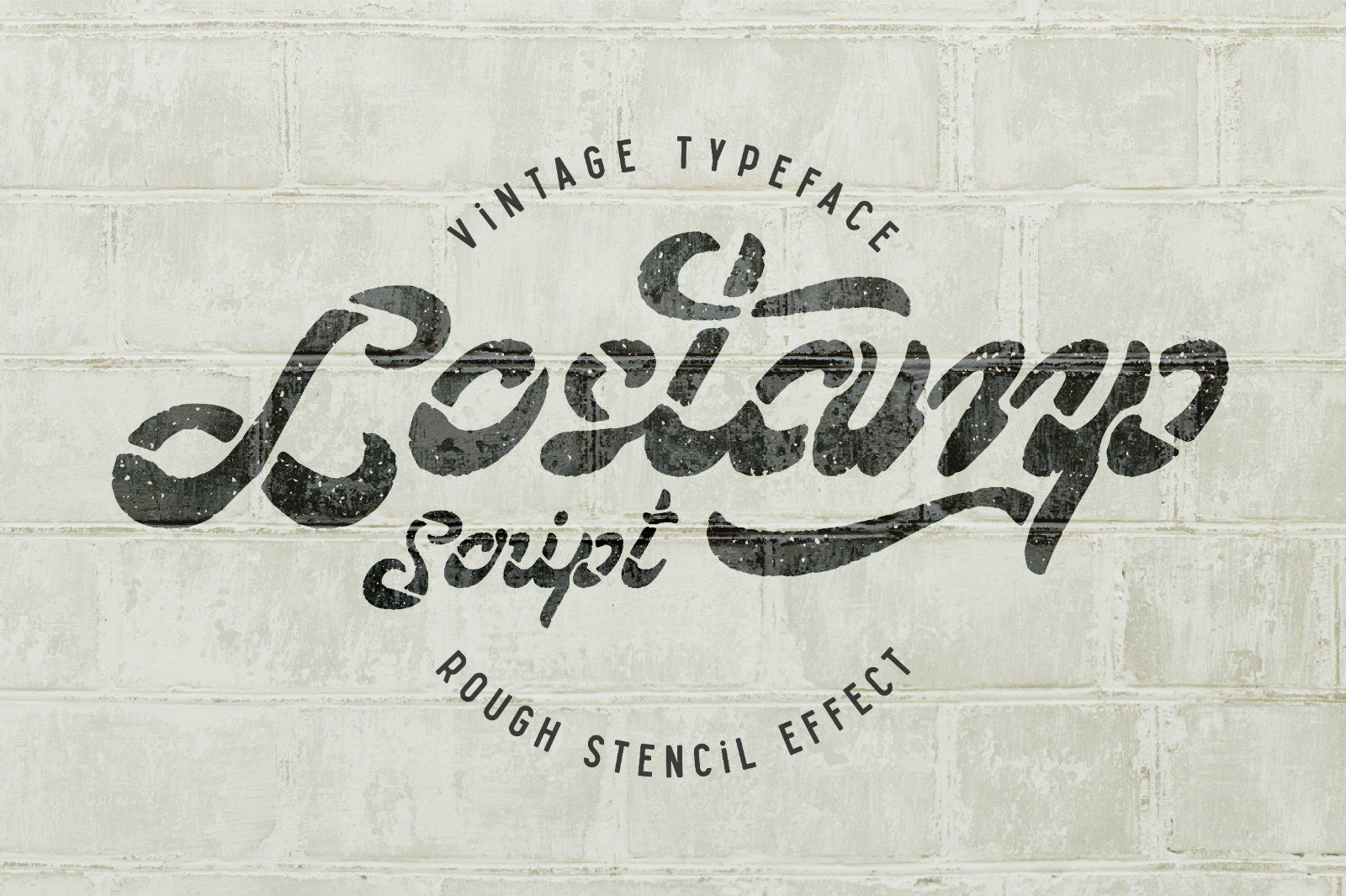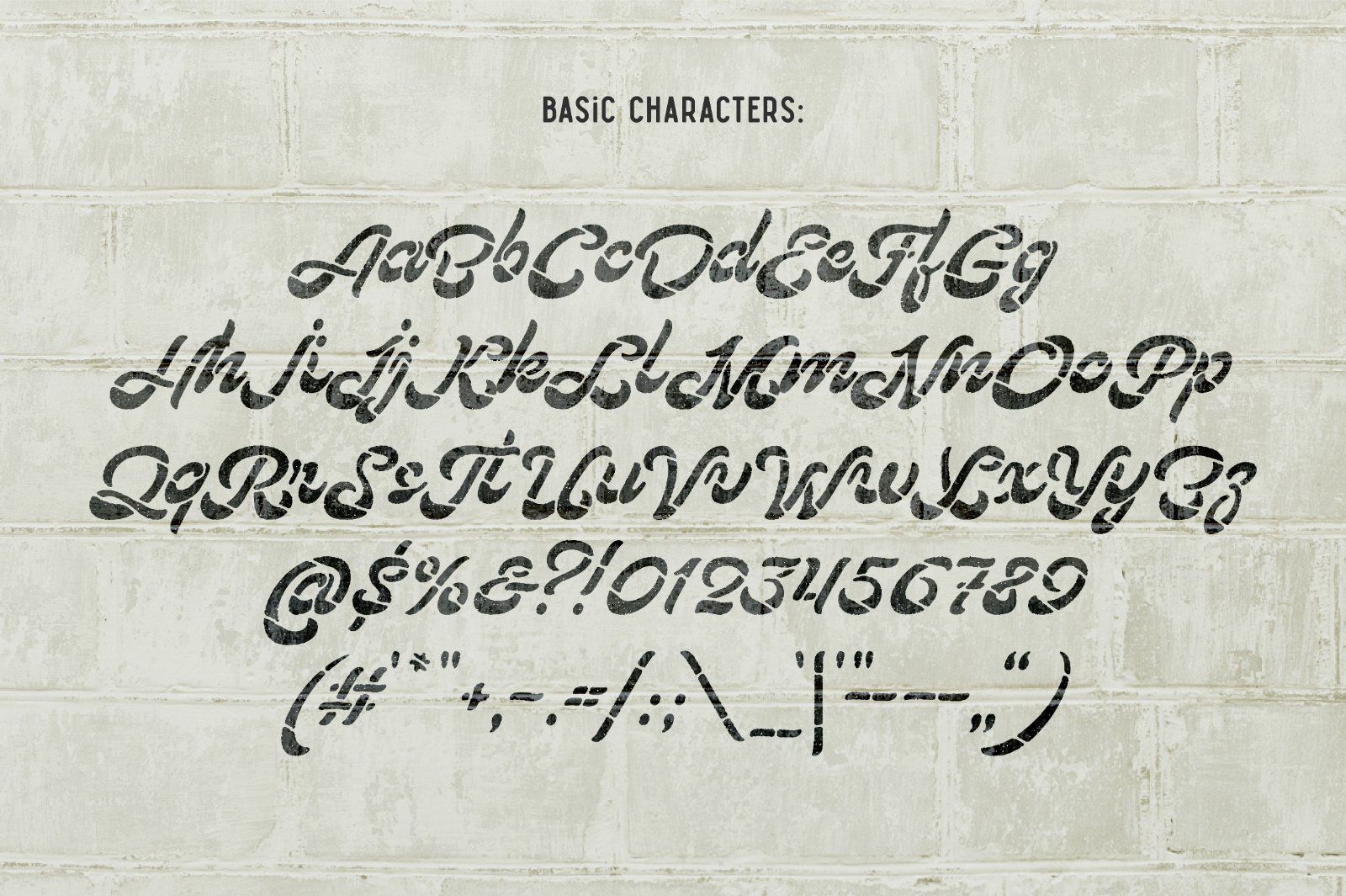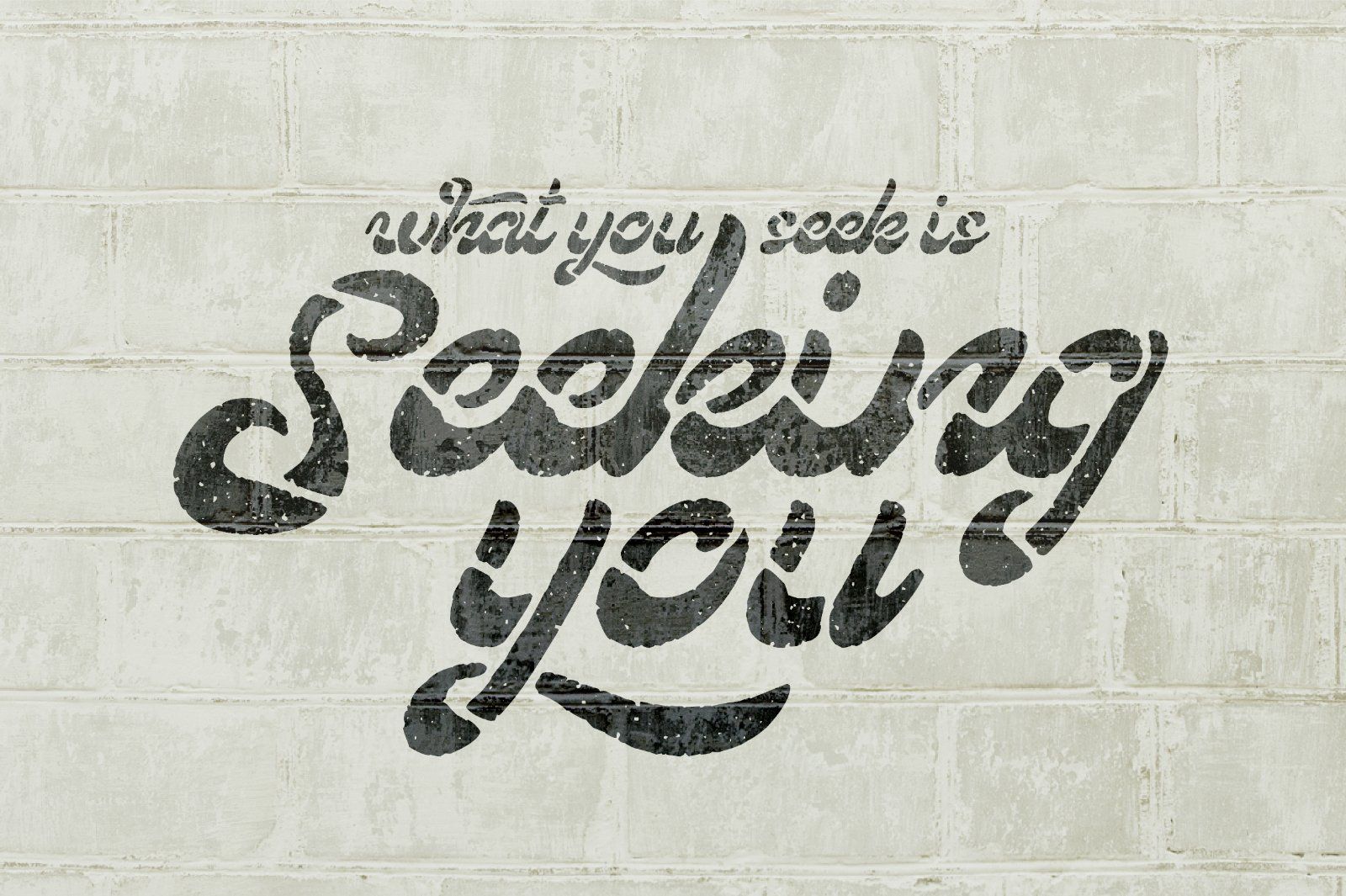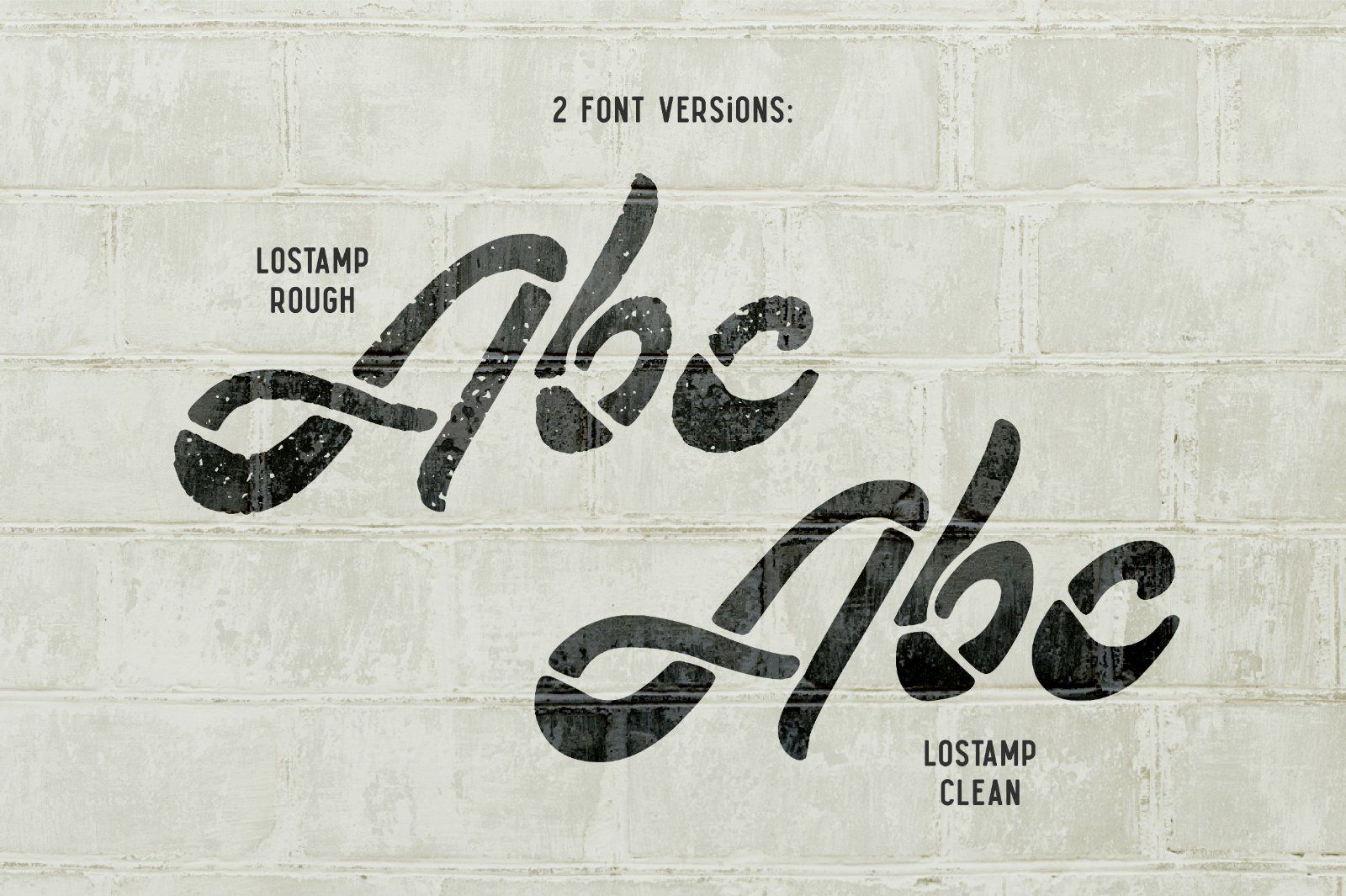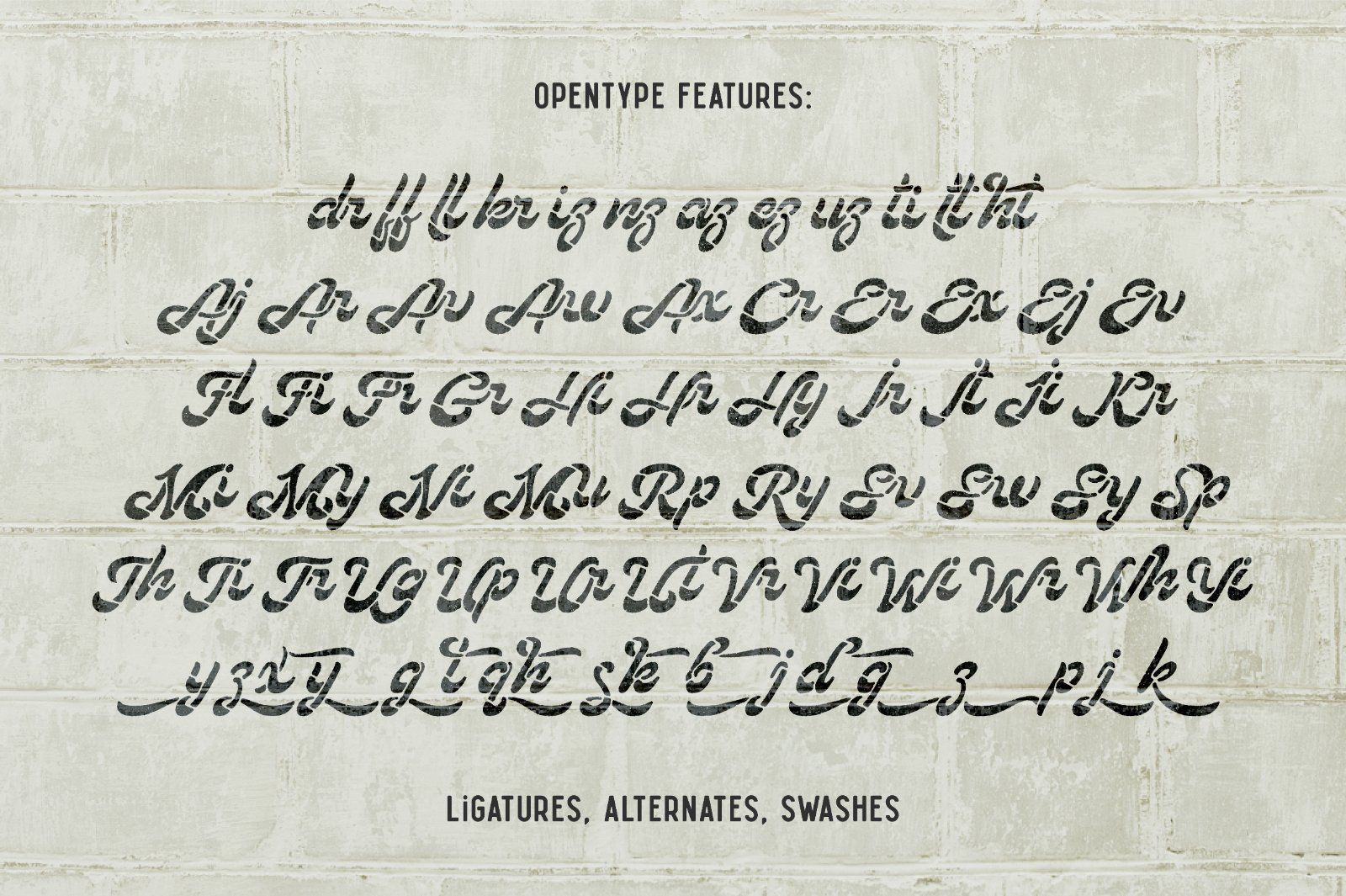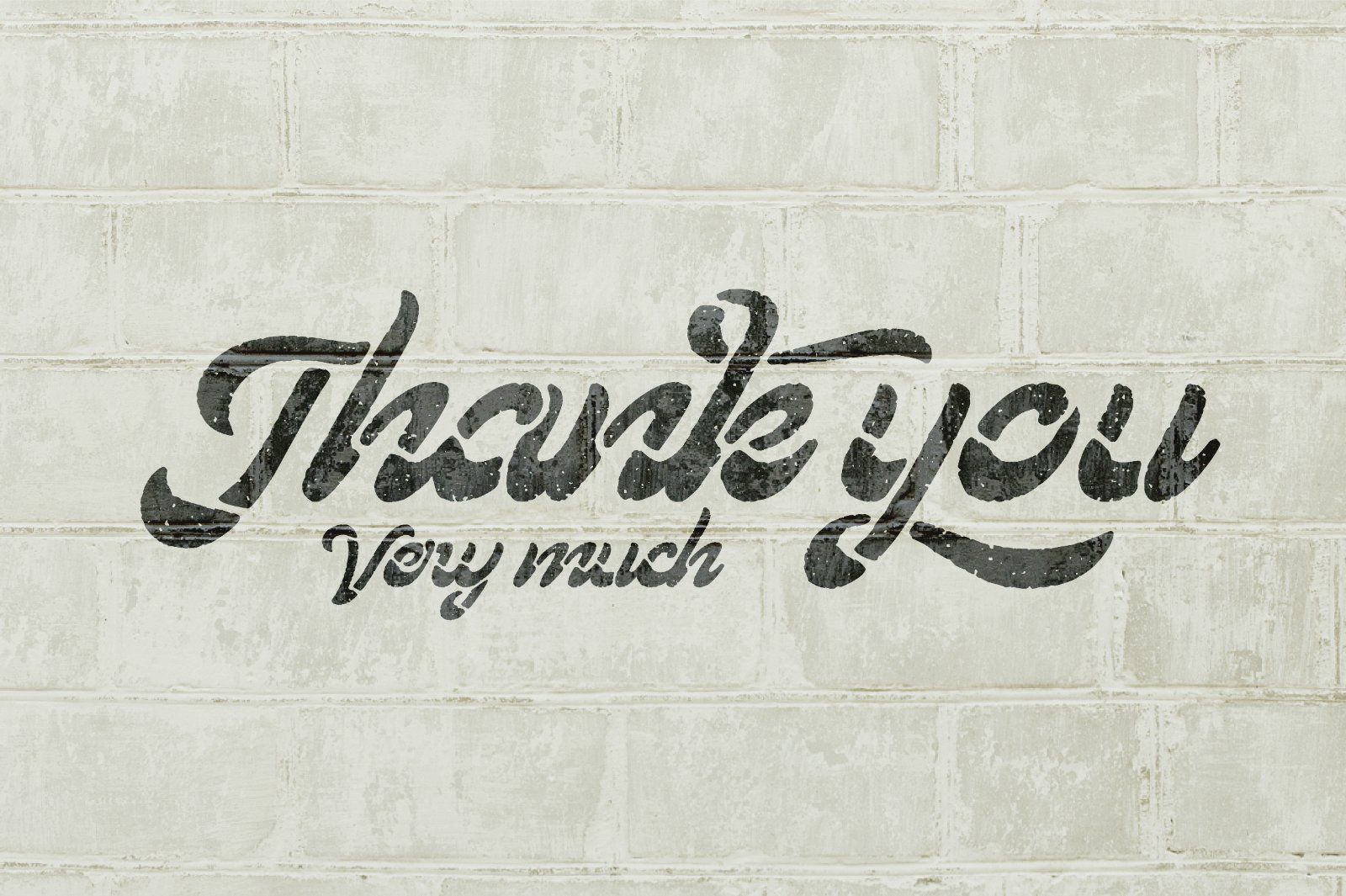
Hi! Here is a grunge variation of my "Loftype" font named "Lostamp". As you can see it has a stencil cuts and two versions with rough and clean contours.
All OpenType features, like alternates, ligatures, swashes also exists in this fonts.
Note: This font contains only Latin characters (all available characters you can see on 2nd & 5th screenshots)